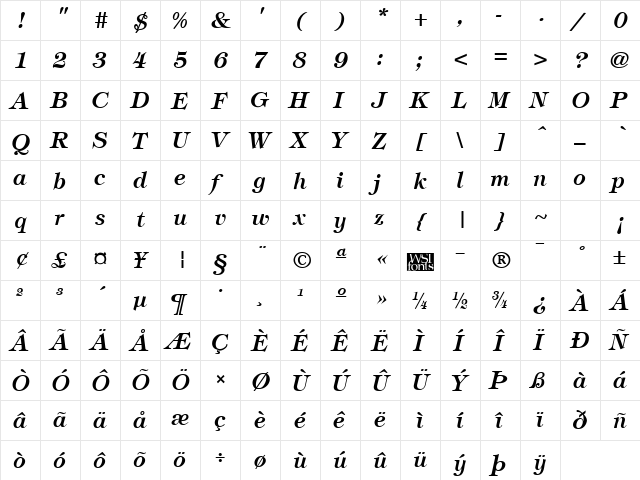
Timbrel Bold Italic Font Preview
Design Context for Timbrel Typeface
Timbrel takes a measured approach to typography — its balanced proportions and neutral character make it a reliable workhorse for both digital and print work. Its italic angle brings a sense of urgency and motion to the letterforms. Its bold stroke weight gives it real presence on the page.